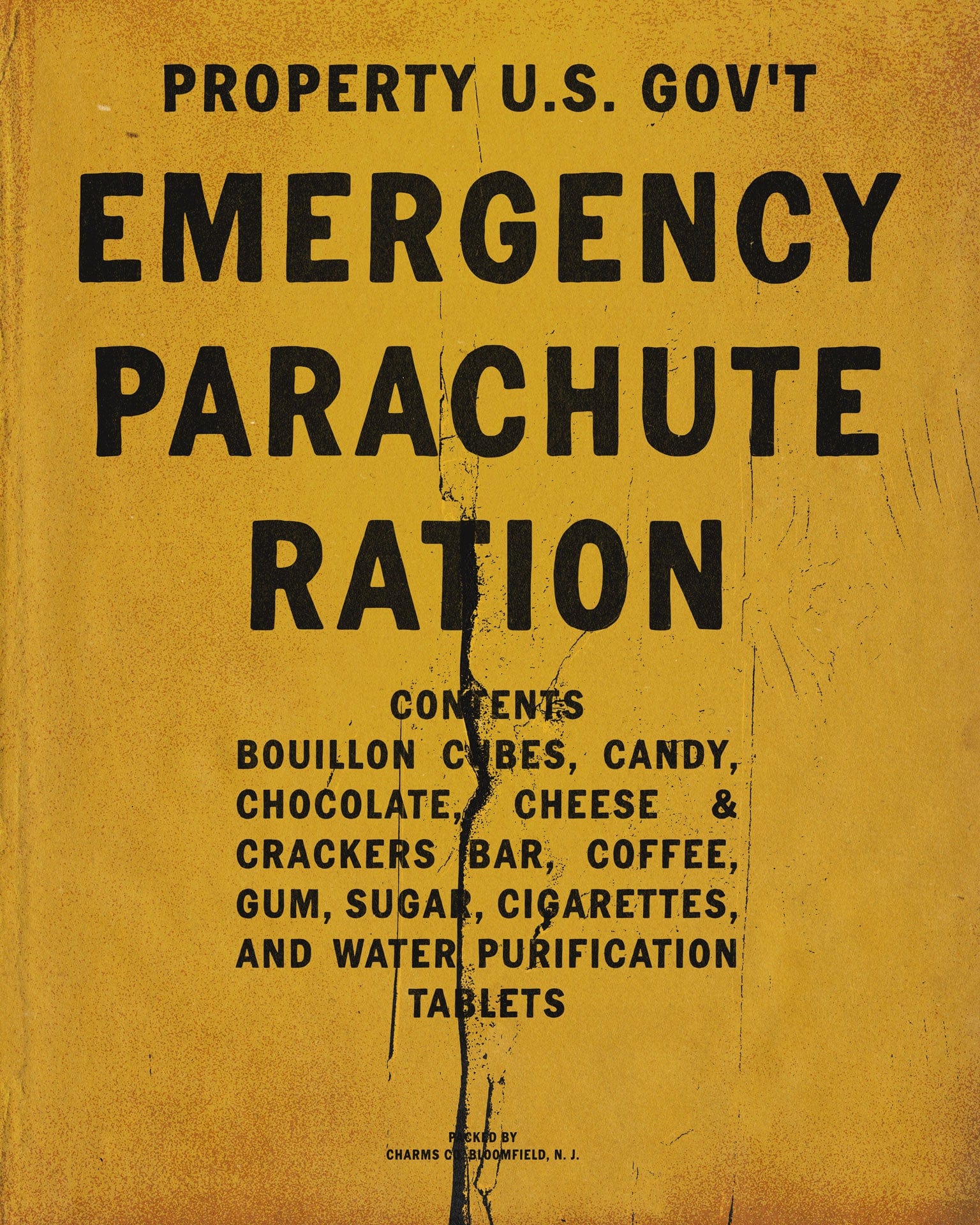
Compass Font
Compass is a hand-drawn typeface loosely based on WW2 ration packaging for the US military. Dual-case and featuring an Advanced Latin character set, Compass is incredibly versatile; it works perfect for dense body text, pairing with display fonts and even in large headings. Excellent for both large-scale and small projects alike.
Designed and built by the 1924us Studio.